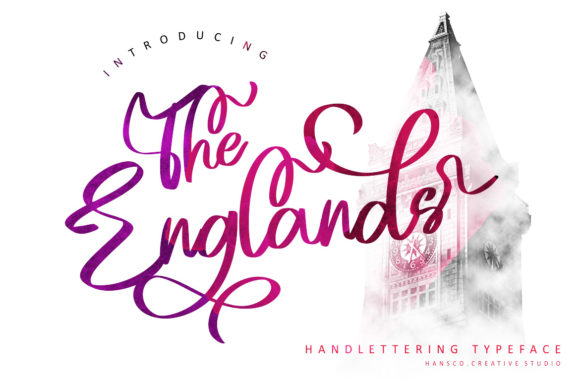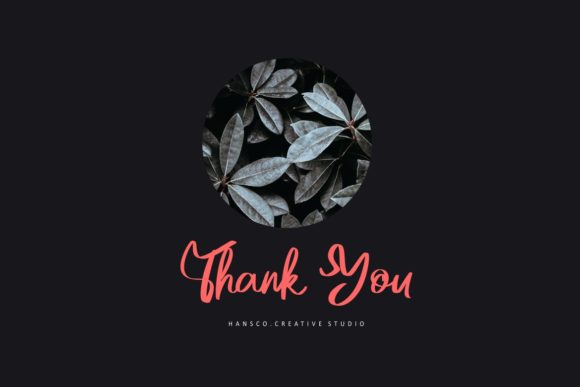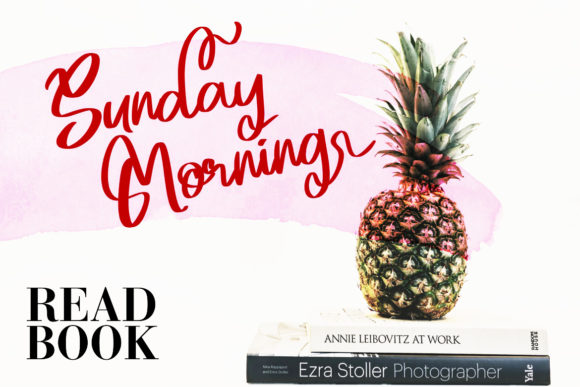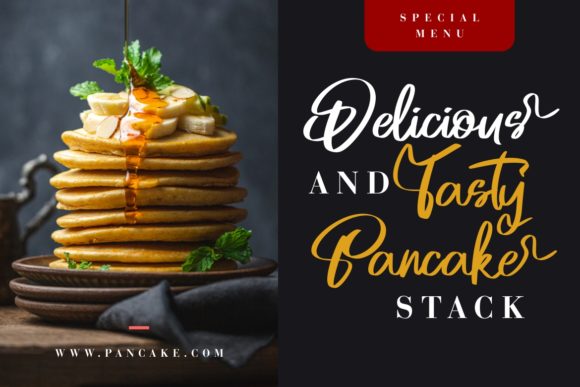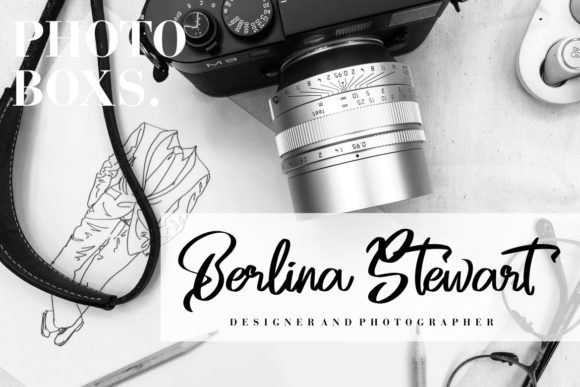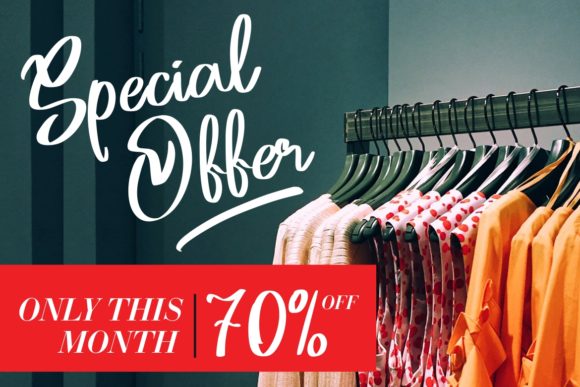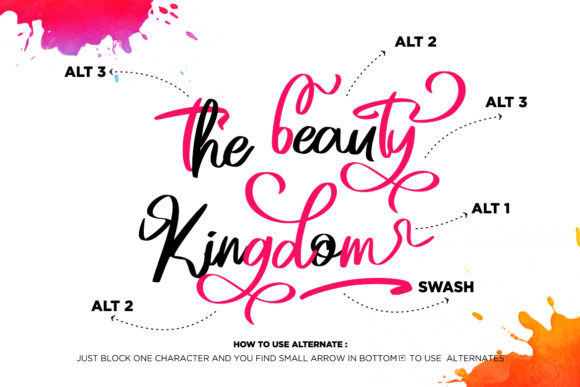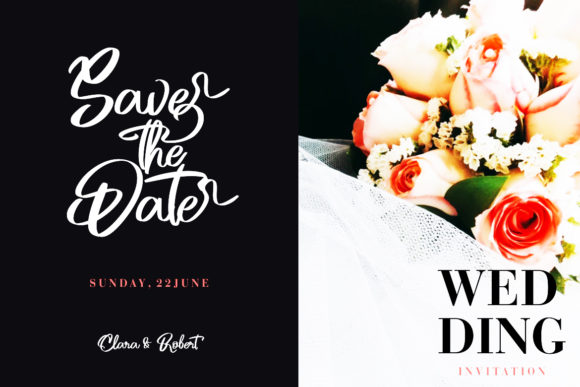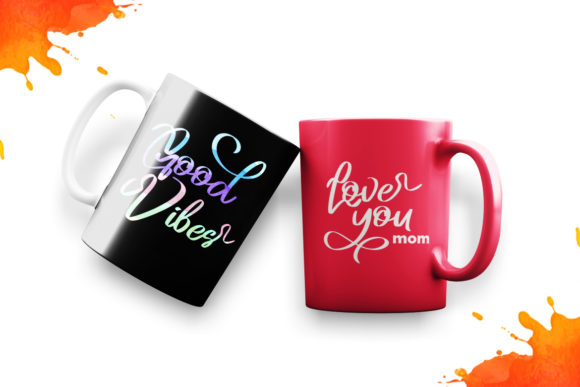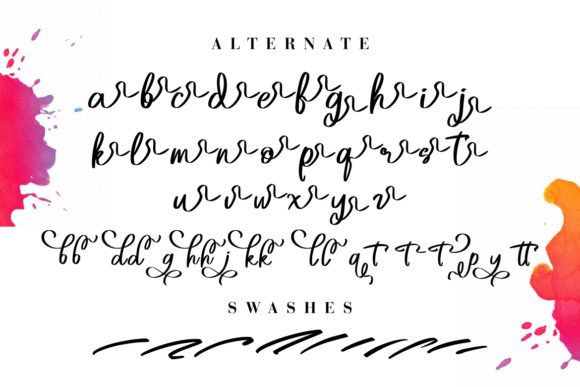
The Englands Font
About The Englands Font
The Englands is elegant and fancy but also authentic. This versatile calligraphy font has a wide range of applications ranging from crafting designs to headlines and is guaranteed to add a sophisticated touch to your next design.
This font is PUA encoded which means you can access all of the gorgeous glyphs and swashes with ease! It also features a wealth of special features including alternate glyphs and ligatures.